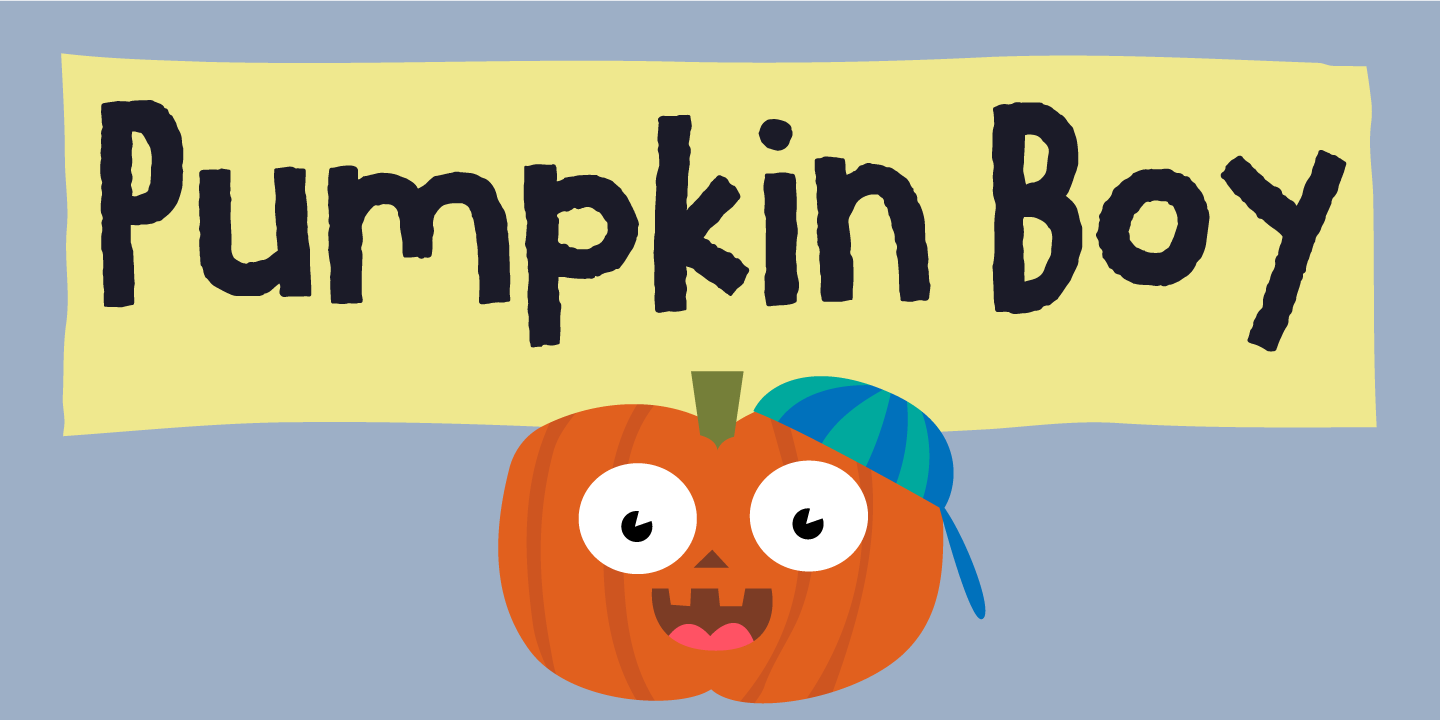
The Pumpkin Boy Font is an excellent choice for designs that aim for a whimsical, playful, and distinctly seasonal aesthetic, perfect for autumn and Halloween themes. Imagine it cheerfully gracing the labels of homemade pumpkin pies, adding a delightful touch to fall festival banners, or bringing a cozy, festive vibe to children's Halloween costumes. It's also perfectly suited for playful social media graphics, charming holiday invitations, decorative craft projects, and any project where you want to convey a sense of innocent fun, autumnal warmth, and a touch of spooky charm. Its often rounded, friendly forms, and unique character make it ideal for conveying sincerity and a cheerful spirit.
What makes the Pumpkin Boy Font so exciting is its ability to instantly infuse a design with the comforting and playful spirit of autumn. It frequently features soft edges and a subtly organic or hand-drawn quality that makes it feel both unique and incredibly approachable, much like a carved pumpkin. This font has a charming and distinctive personality that can instantly elevate your design, making it feel both whimsical and delightfully expressive. It’s designed to capture attention with its unassuming beauty, ensuring your message is not just seen, but felt with a sense of delightful authenticity.
The Pumpkin Boy Font family typically might offer a few key weights to best maintain its distinctive character, possibly including stylistic alternates or unique ligatures that enhance its whimsical or seasonal appeal. While it might not always have an extensive range of weights, its strength lies in its unique visual style and inherent expressiveness. These variations empower designers to create a truly inviting and memorable display, ensuring the Pumpkin Boy Font Free Download can adapt to a wide array of projects while maintaining its signature, cozy charm.